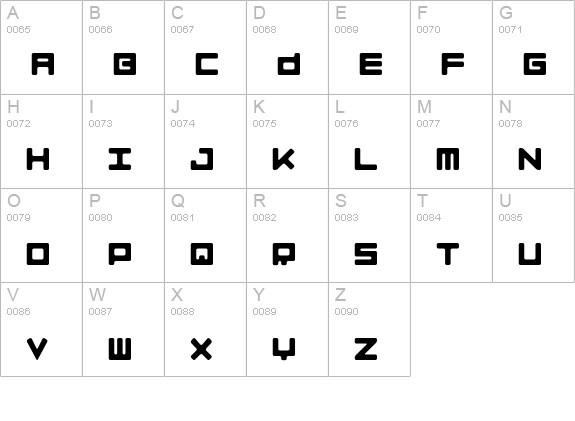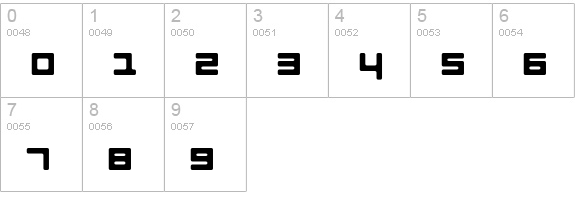
LuggageRoundHeavy Font Details
LuggageRoundHeavy font is a bold and eye-catching typeface that exudes a sense of strength and reliability. With its rounded edges and heavy weight, this font is perfect for making a statement in any design project. Whether you're creating a poster, logo, or website, LuggageRoundHeavy font will ensure that your message is loud and clear. The best part? LuggageRoundHeavy font is completely free to download at FontsMarket.com. That's right, you can add this powerful font to your collection without spending a dime. Don't miss out on the opportunity to enhance your designs with the striking presence of LuggageRoundHeavy font. Download it now and let your creativity soar.